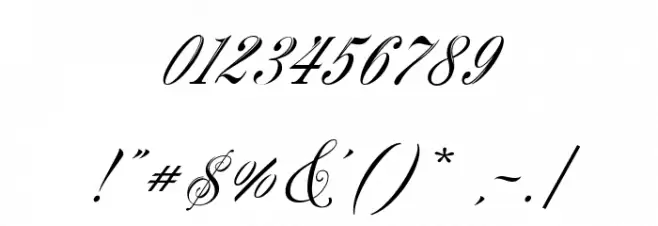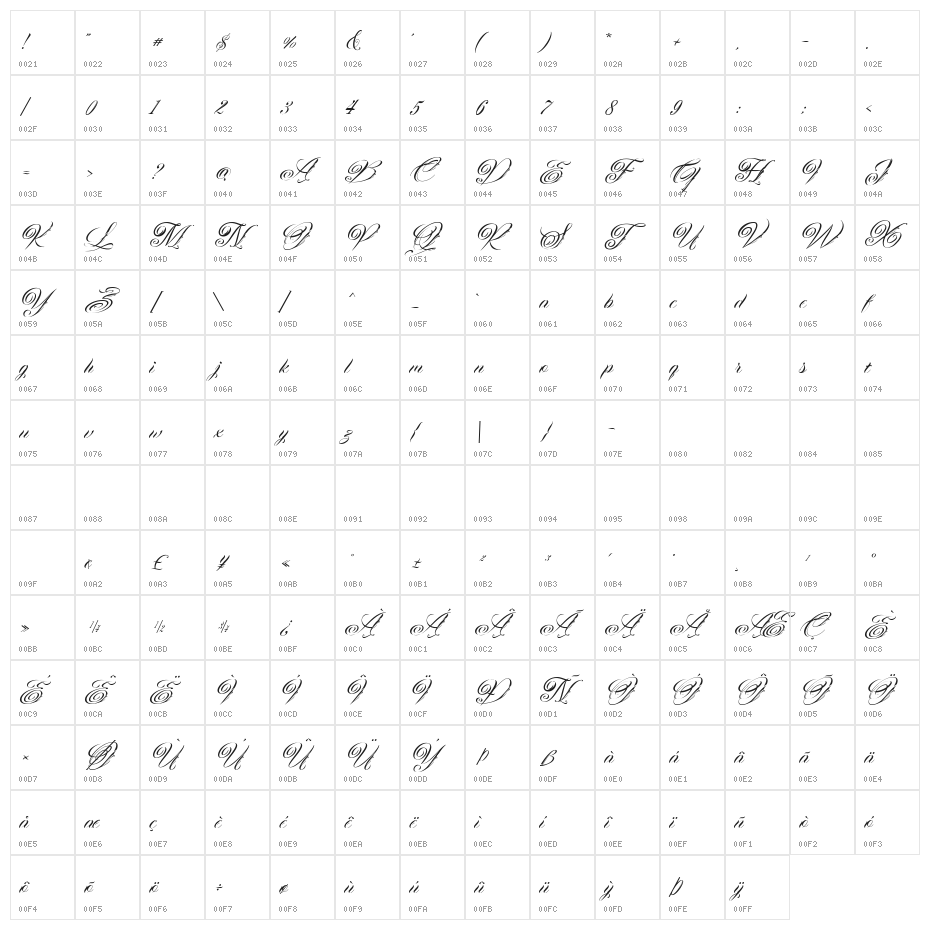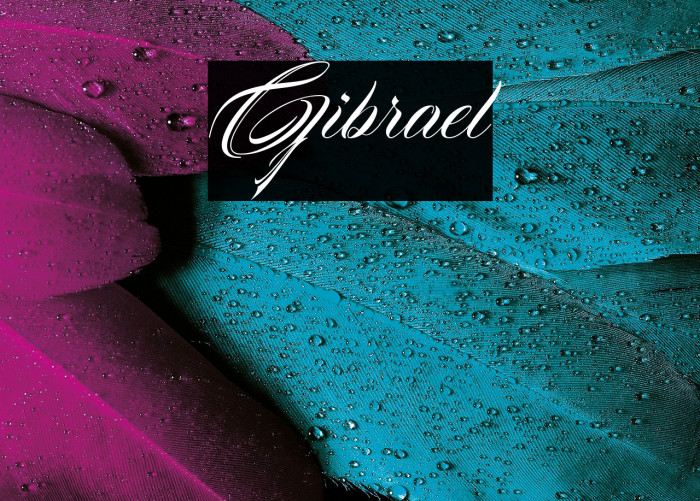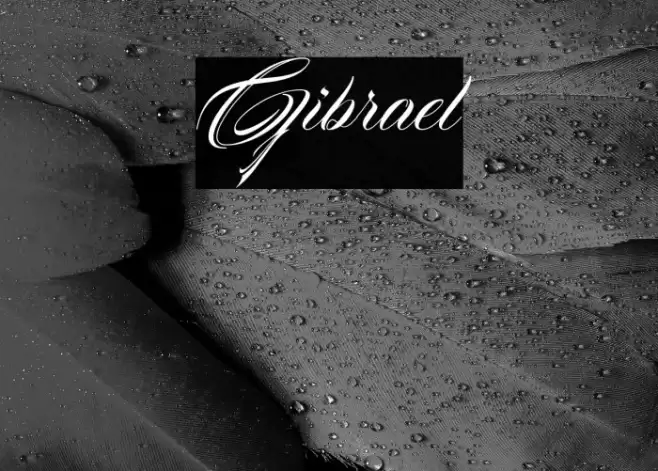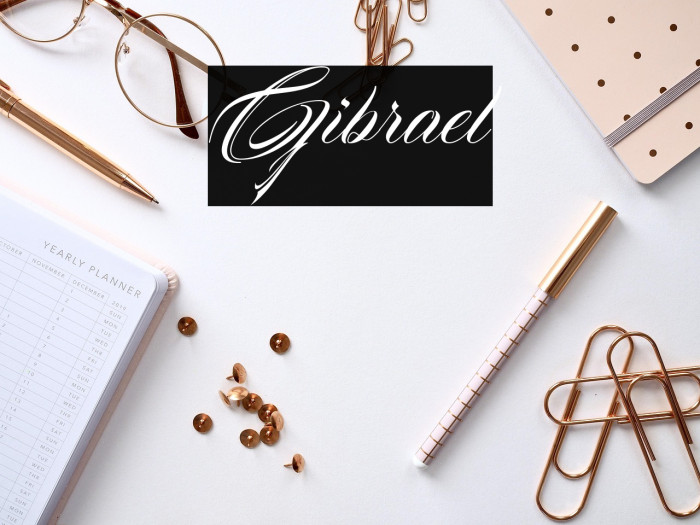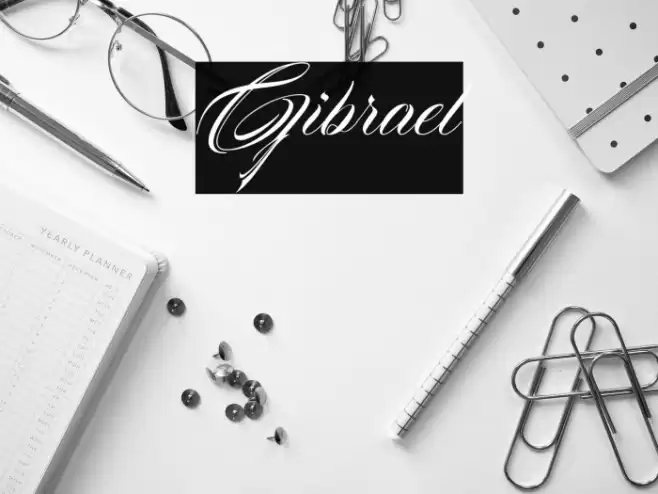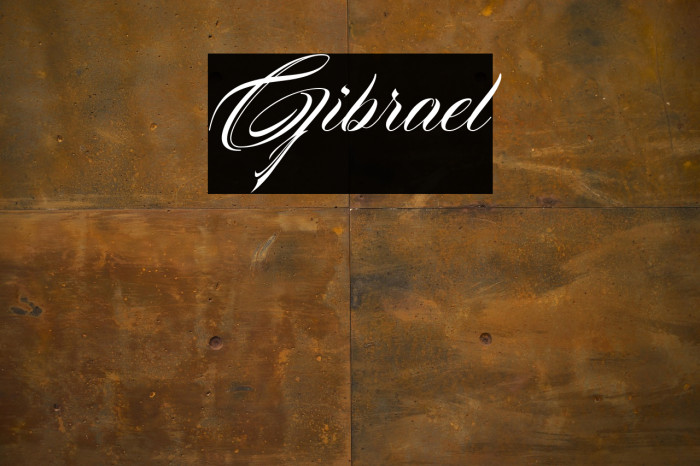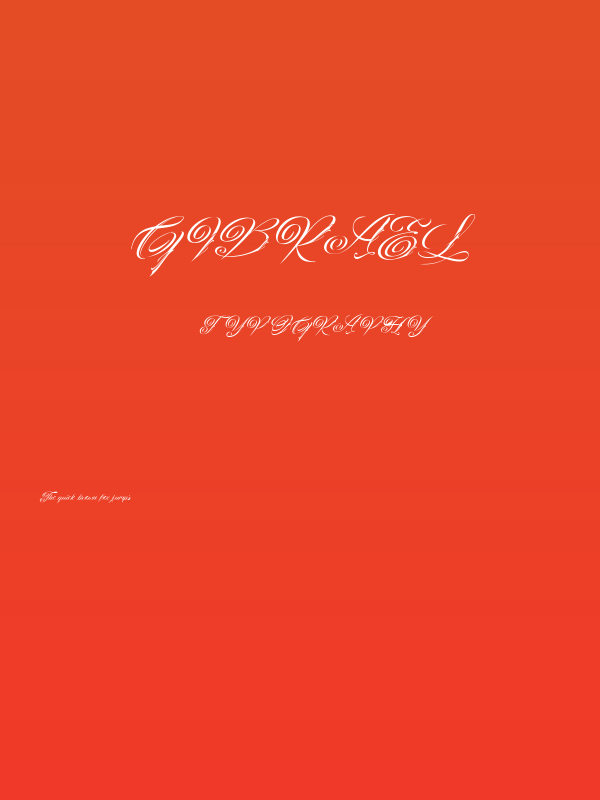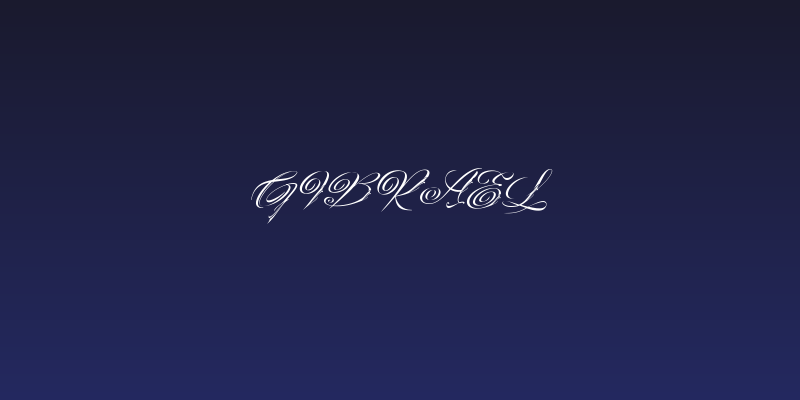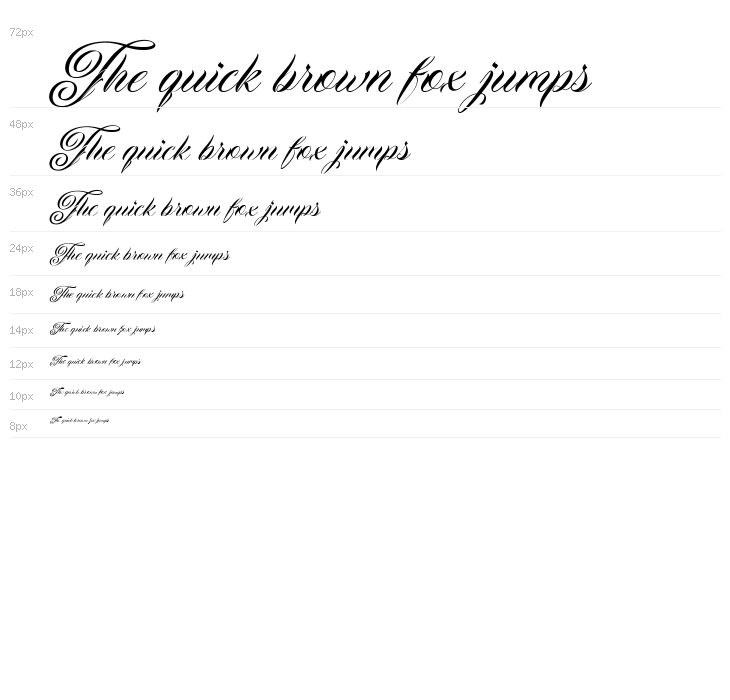
Gibrael Font
Gibrael Description
This elegant script font features ornate, flowing characters with intricate swashes and flourishes. The uppercase letters are particularly decorative, with elaborate loops and curves that give a sense of sophistication and artistry. The lowercase letters maintain a consistent style, with smooth, connected strokes that enhance readability while preserving the font's decorative nature. The numerals are equally stylish, matching the overall aesthetic with their graceful curves. Special characters are thoughtfully designed, integrating seamlessly with the rest of the font. This font exudes a sense of luxury and refinement, making it ideal for formal invitations, branding, and other high-end design projects.
| Use Case | Invitations, Branding, Logos |
| Proposed Projects | Ideal for wedding invitations, luxury branding, elegant logos, and formal event materials. |